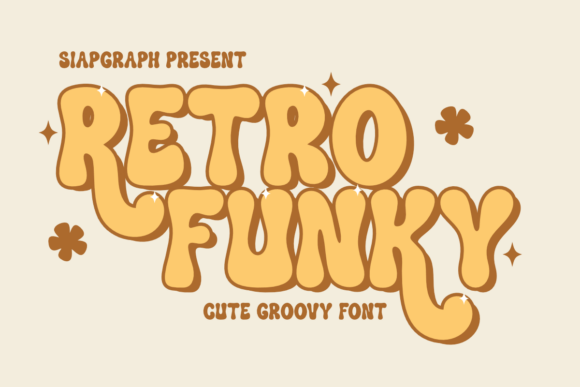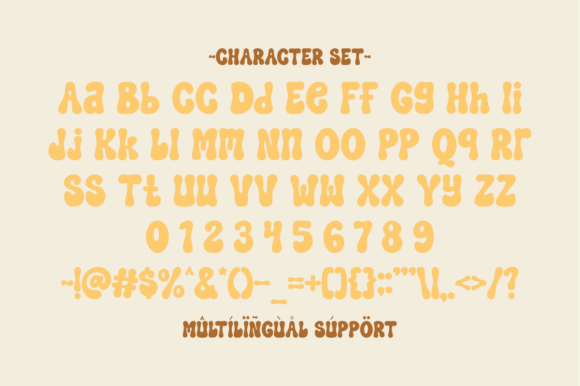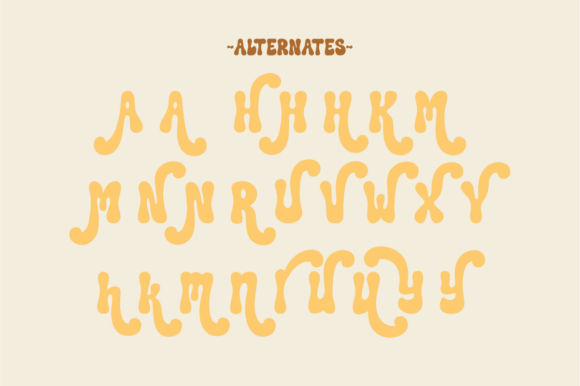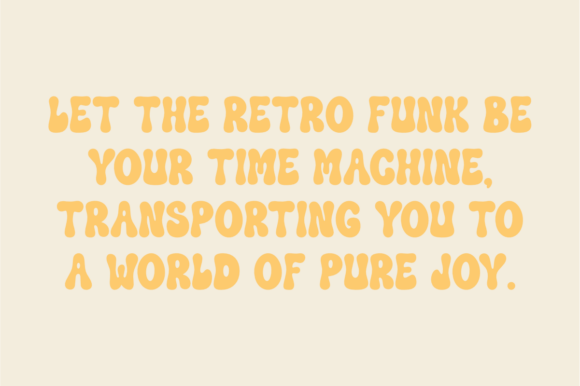
Retro Funky Font
About the Retro Funky Font
The Retro Funky Font is here to transform your projects with its distinctive character and style. Retro Funky is a cute and groovy display font that embodies a fun and playful 70s aesthetic. With its bold, bubbly letterforms and smooth curves, this font is perfect for retro-themed projects, branding, posters, merchandise, stickers, and more. Whether you’re designing for vintage vibes or modern creative works, Retro Funky brings a nostalgic charm that stands out.
Retro Funky excels in headlines, short slogans, and eye-catching display elements within posters, packaging, and branding for products targeting younger demographics or those with a retro/vintage appeal. Its playful nature makes it ideal for projects needing a fun, approachable feel. Avoid using it for body text or lengthy paragraphs; its bold forms become visually overwhelming at smaller sizes.
This font’s inherent energy pairs well with clean, geometric sans-serifs like Montserrat or Futura for a balanced contrast. For a more vintage feel, consider a classic serif like Garamond or a slightly more modern serif like Playfair Display. These pairings provide a sophisticated counterpoint to Retro Funky’s playful curves.
Retro Funky’s core personality is undeniably bold and playful, making it perfect for brands that want to project a fun, energetic image, perhaps in the fashion, music, or entertainment industries. It’s less suited to projects requiring elegance, sophistication, or a minimalist aesthetic.